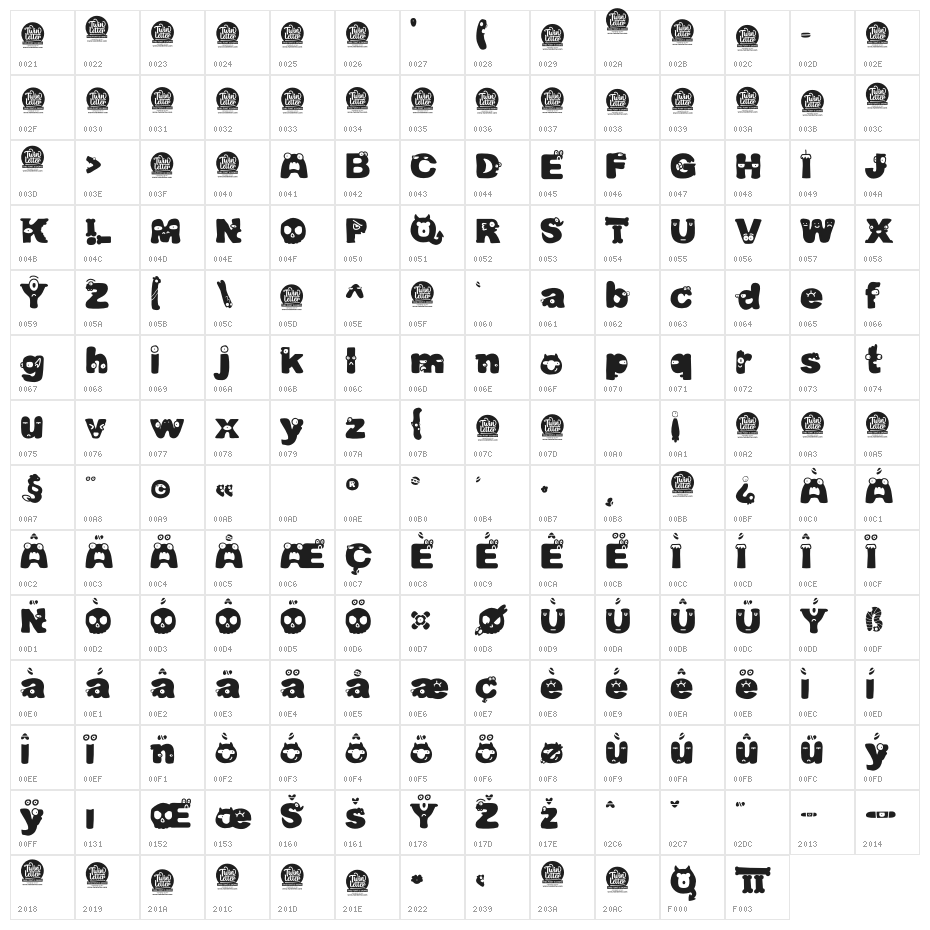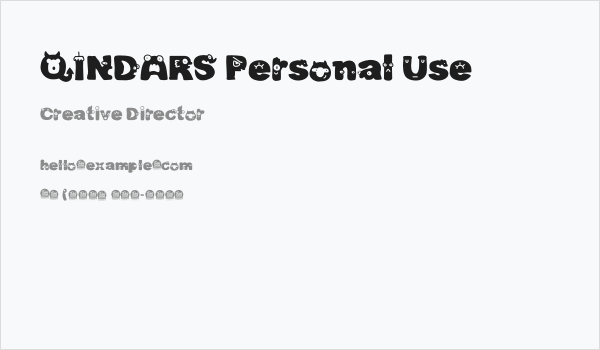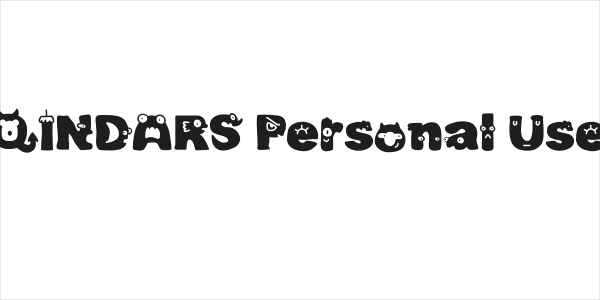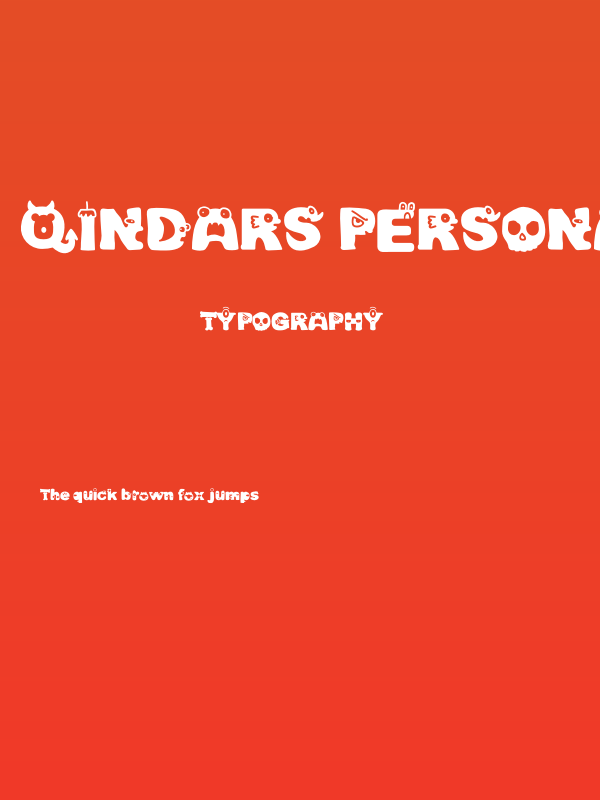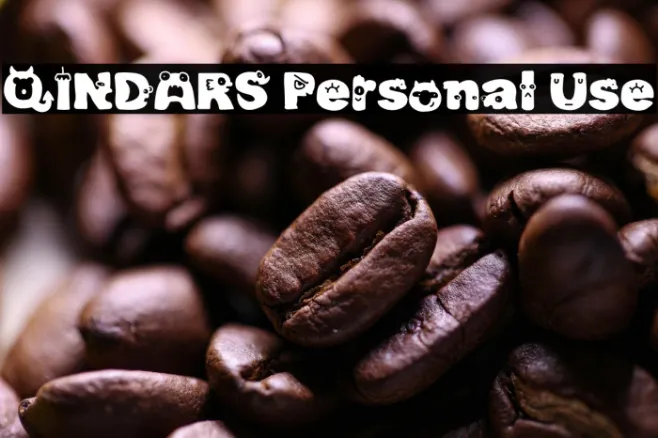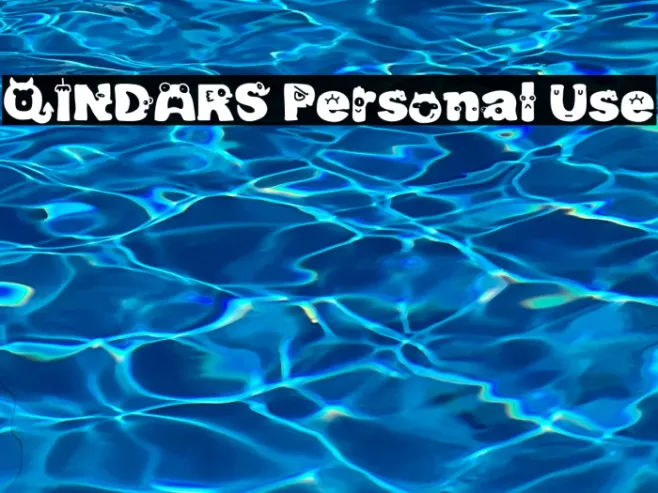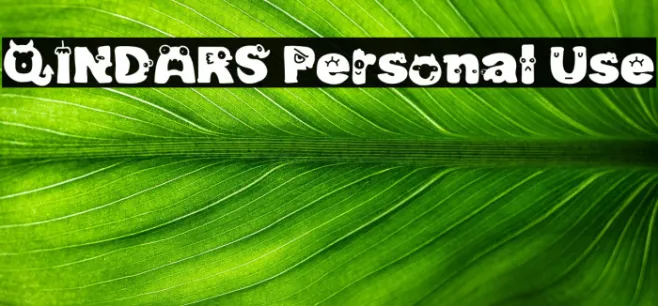
QINDARS Personal Use Font
QINDARS Personal Use Description
This playful and whimsical font features bold, rounded characters with unique, quirky details that give each letter a distinct personality. The letters are adorned with small, cartoonish eyes and expressions, adding a fun and animated feel. The font's thick strokes and solid forms make it highly legible, while the decorative elements provide a lively and engaging appearance. Perfect for projects that require a touch of humor and creativity, this font stands out with its imaginative design.
| Overall Style | Playful, Cartoonish, Whimsical |
| Proposed Projects | Ideal for children's books, playful branding, comic strips, and creative posters. |